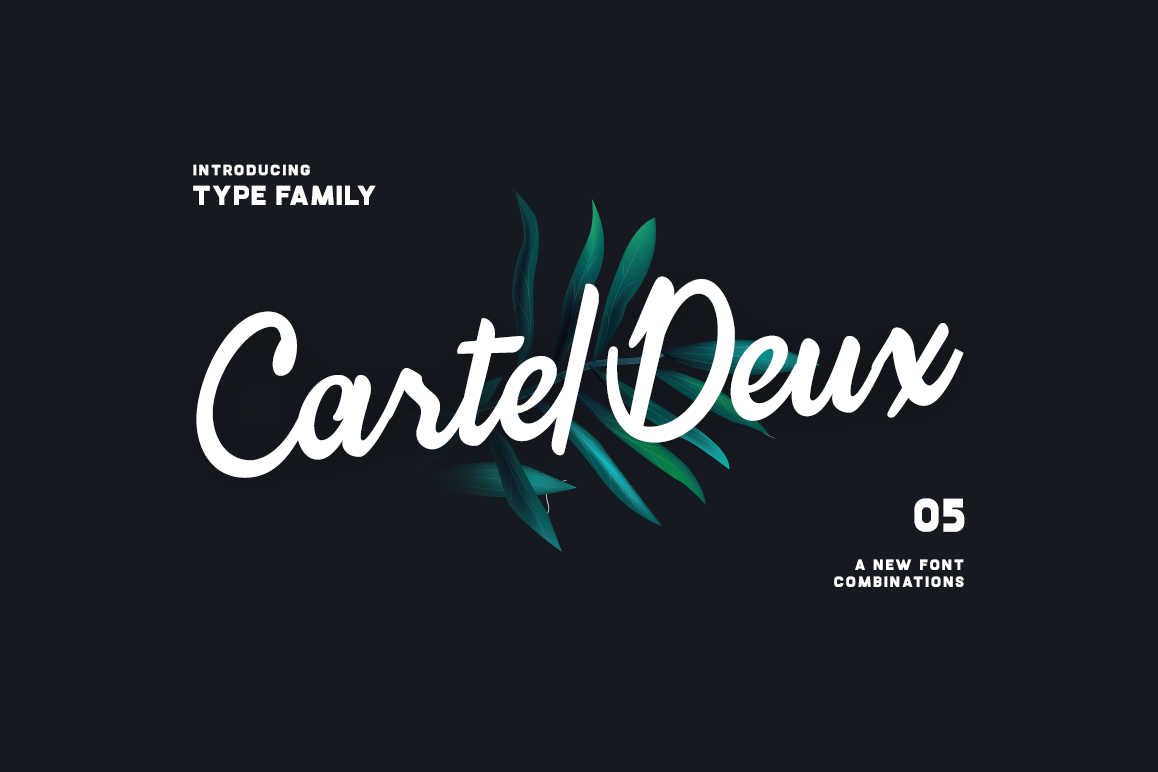
Cartel Deux 5 Styles
Cartel Deux Black
Cartel Deux Rounded
Cartel Deux Regular
Cartel Deux Rounded Al
Cartel Deux Regular Al
Cartel Deux is a new typeface by Tyfomono™. It’s the combinations fonts include a script and bold style and also have a different style between Smooth & Sharp Script. To complete the set of fonts, Cartel Deux offers 5 style in the family.
• Cartel Deux Sharp
• Cartel Deux Sharp Alternate
• Cartel Deux Smooth
• Cartel Deux Smooth Alternate
• Cartel Deux Black
MULTILANGUAGE SUPPORT.